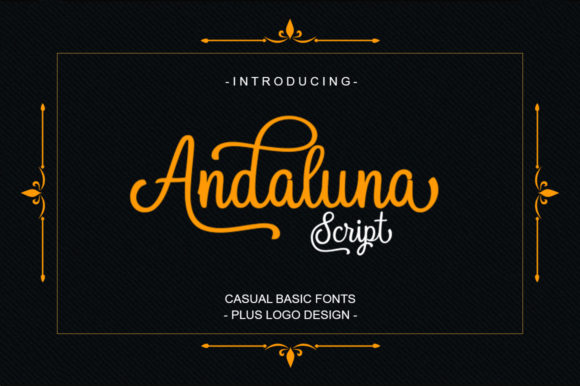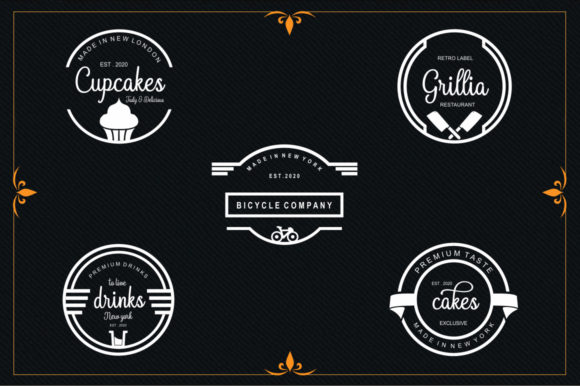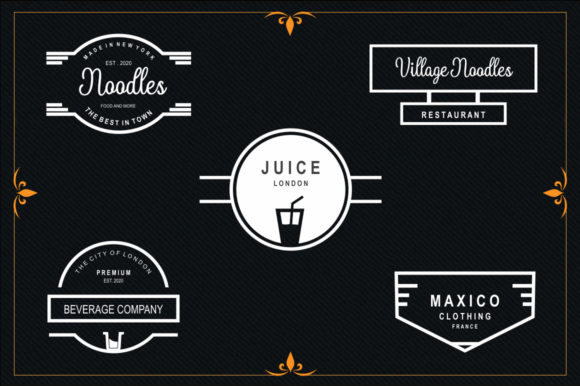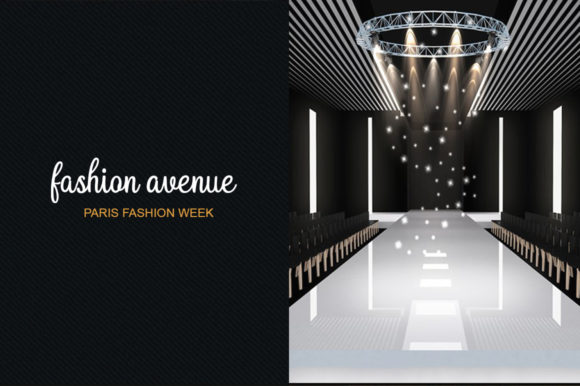
Andaluna Font
About the Andaluna Font
Crafted with precision, the Andaluna Font is ready to bring your ideas to life. Andaluna is an elegant handwritten font, carefully handcrafted to become a true favorite. It will elevate a wide range of design projects to the highest level, be it branding, headings, wedding designs, invitations, signatures, logos, labels, and much more!
Andaluna’s elegant, handwritten style shines in headlines, short text blocks, and branding applications where a touch of sophistication is desired. It works particularly well for logos, wedding invitations, and short quotes, adding a personal and refined feel. However, its delicate nature makes it unsuitable for body text or UI elements requiring high readability.
Pair Andaluna with a clean sans-serif like Lato for a balanced contrast, or a classic serif such as Garamond for a more traditional feel. For a playful touch, consider pairing it with a slightly rounded geometric sans-serif font.
Andaluna projects a sophisticated and romantic personality, ideal for brands focusing on luxury, handcrafted goods, or events requiring an air of timeless elegance. Avoid using it in contexts that demand a strong, bold, or highly legible typeface.
Andaluna Font Usage Examples
Andaluna Font Example